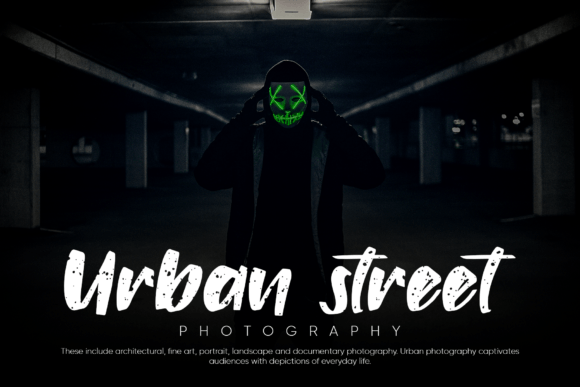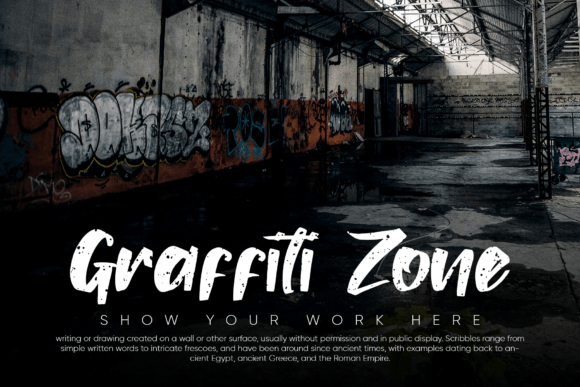
Introduction to Livermore Font
Livermore is a modern and cool display font.
Key Features of Livermore Font
Why Choose Livermore Font?
Livermore Font offers exceptional quality and versatility, making it a valuable addition to your design toolkit. Whether you’re creating for personal projects or commercial use, Livermore Font delivers professional results.